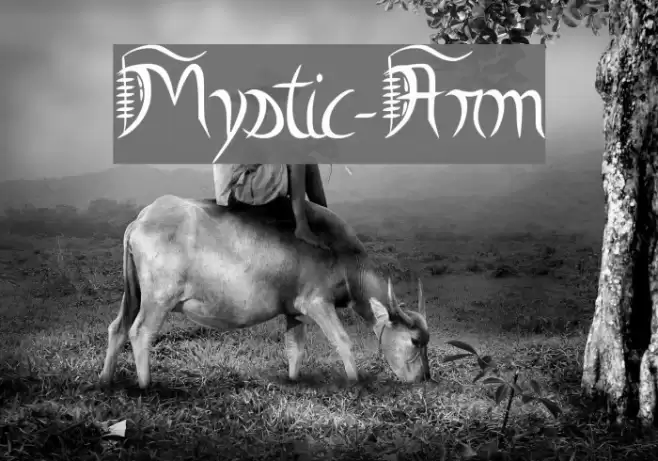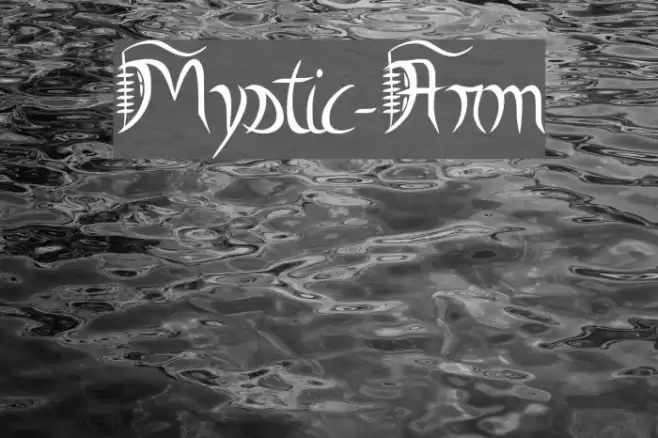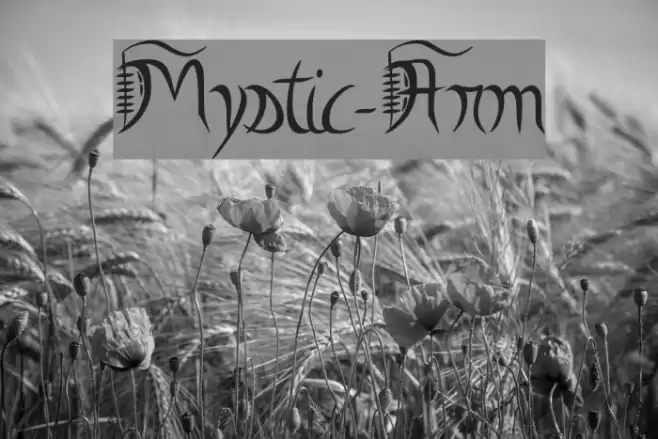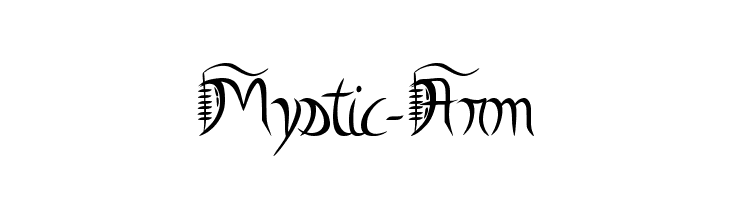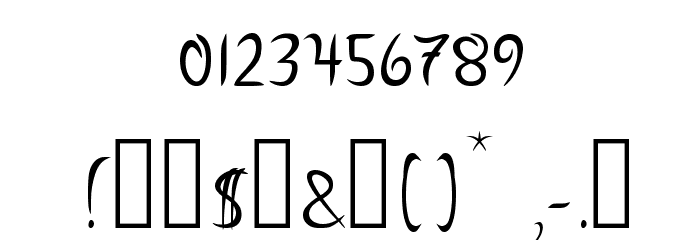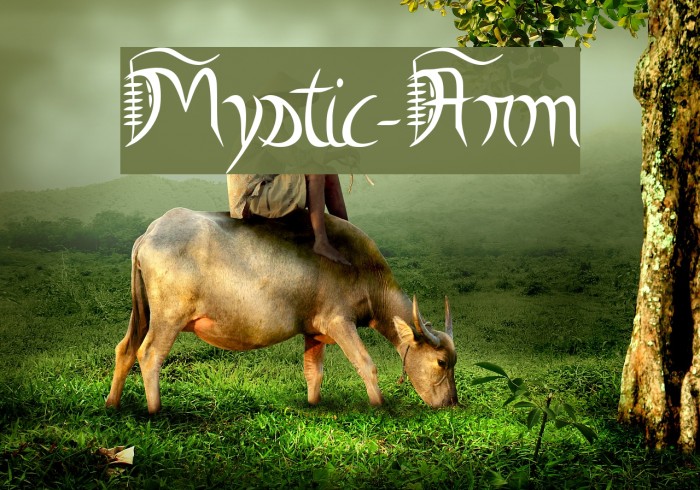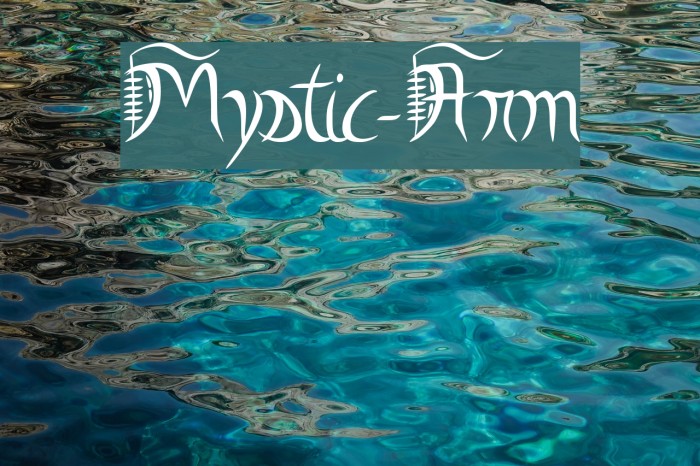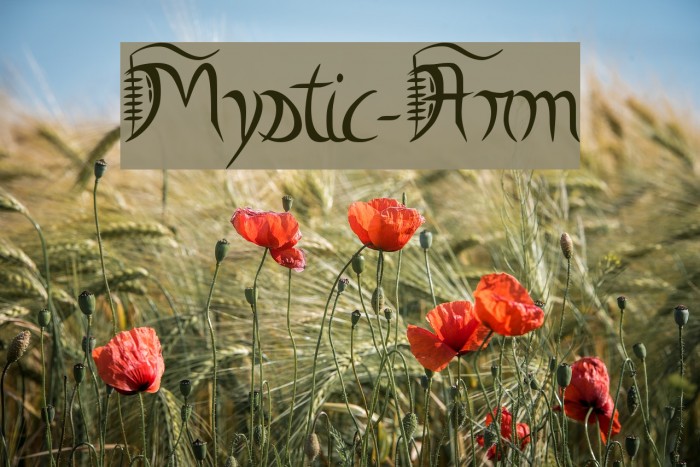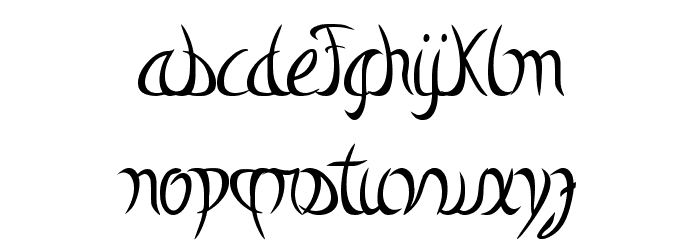
Mystic-Arm Font
Mystic-Arm Description
This font features an intricate and decorative style with a gothic influence. The uppercase letters are adorned with sharp, angular lines and unique embellishments that give them a mystical appearance. The lowercase letters maintain a fluid and elegant form, with some characters extending below the baseline, adding to the font's dynamic nature. Numbers and special characters are designed to match the ornate style, ensuring consistency throughout. The overall design is highly stylized, making it suitable for projects that require a dramatic and artistic touch.
A decorative and gothic-inspired font with intricate, angular designs from Uncategorized fonts.
- Proposed Projects: Ideal for fantasy book covers, gothic-themed posters, tattoo designs, and artistic branding.
- Overall Style: Gothic, Decorative
- Use Case: Logos, Headlines, Artistic projects